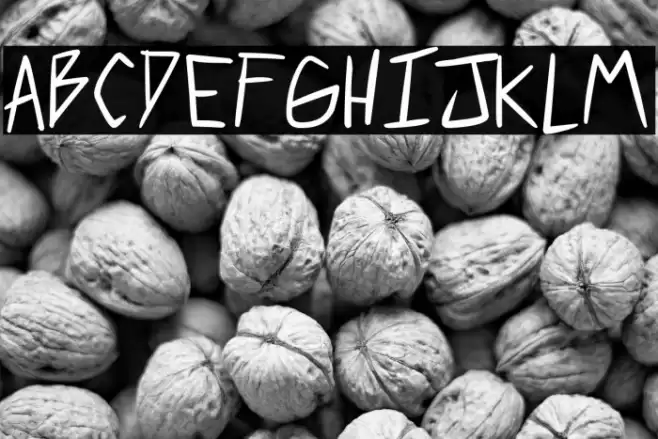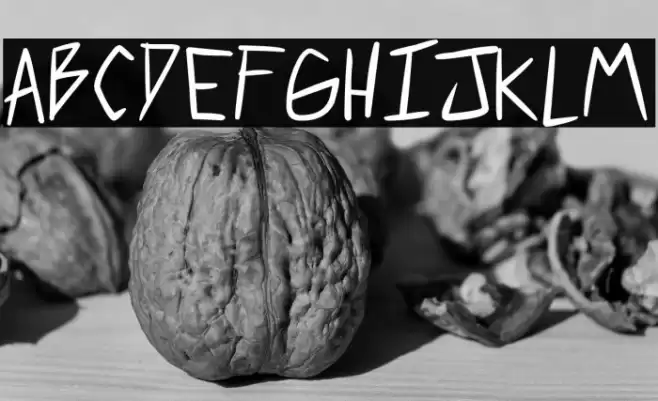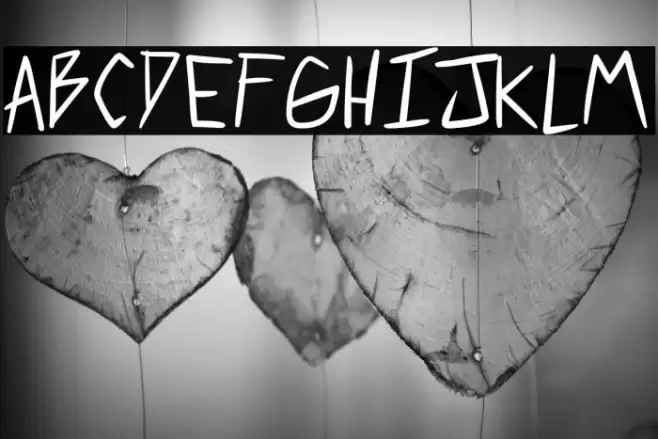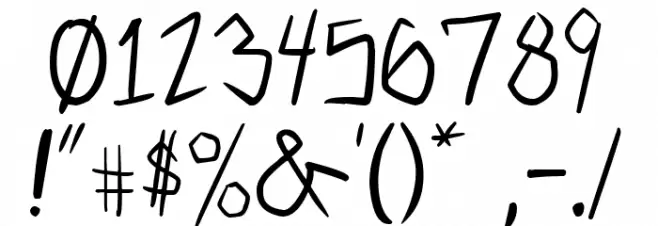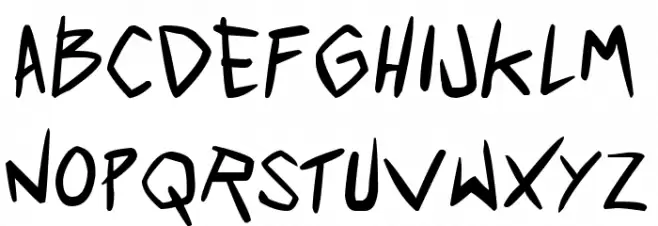
2 much coffee Font
2 much coffee Description
This font features a playful and energetic handwritten style, characterized by its irregular and dynamic letterforms. The strokes are bold and slightly uneven, giving it a casual and informal appearance. The uppercase and lowercase letters maintain a consistent style, with a slight slant that adds to the lively feel. The numbers and special characters are crafted with the same playful energy, making them blend seamlessly with the alphabet. This font's unique style is perfect for projects that require a personal touch or a sense of spontaneity.
A playful, energetic handwritten font with bold, irregular strokes from Uncategorized fonts.
- Font: 2 much coffee
- Proposed Projects: Ideal for greeting cards, children's books, casual branding, and social media graphics.
- Overall Style: Casual, Playful
- Use Case: Headlines, Logos, Informal Text
2 much coffee UPPERCASE
2 much coffee LOWERCASE
2 much coffee OTHER CHARS